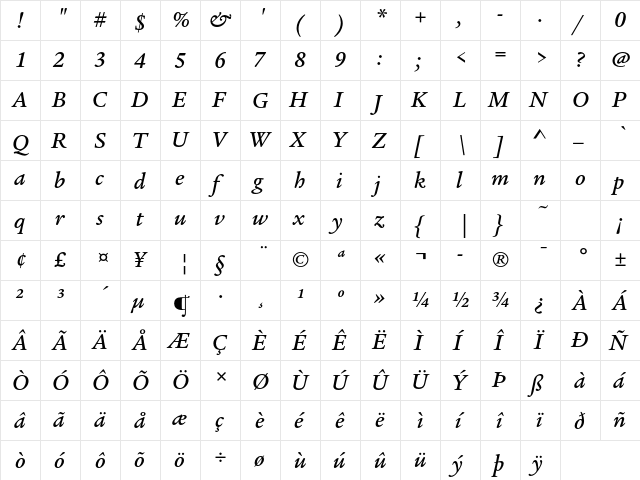
ITC Legacy Serif Std Medium Italic
| Designer | Ronald Arnholm |
Design Context for ITC Legacy Serif Std Typeface
ITC Legacy Serif Std brings classic typographic sensibility to the table — its serifs and measured letterforms reflect centuries of print heritage. The slanted form adds forward momentum and visual energy.
Pro Tip: Use ITC Legacy Serif Std for editorial body copy and considered headline work. Pair with a neutral sans for UI elements or captions to create a classic hierarchy.